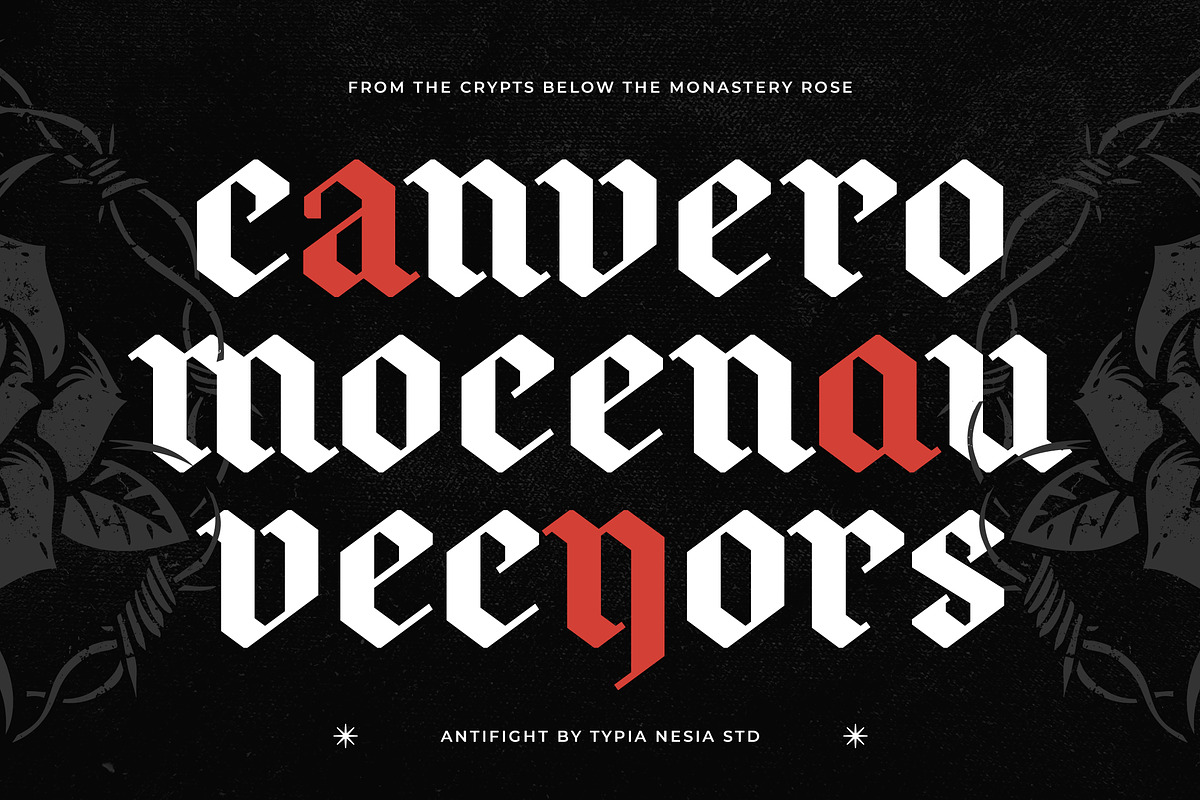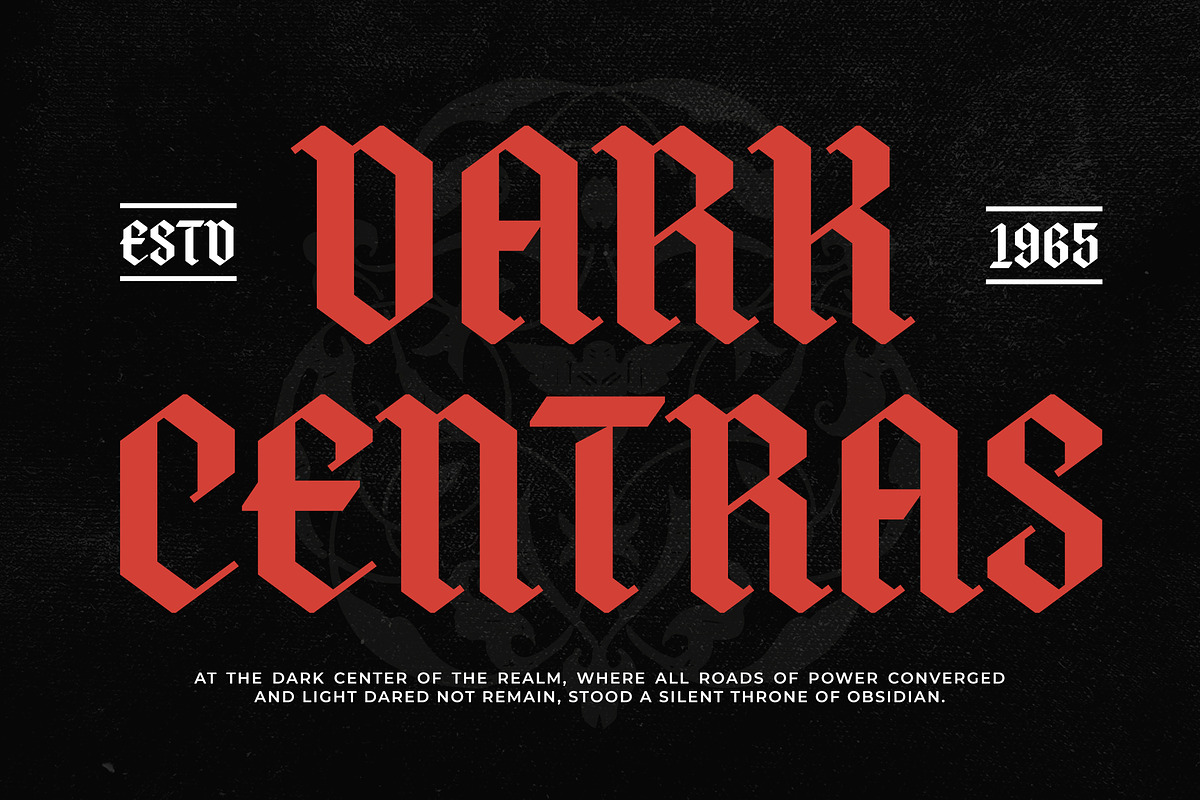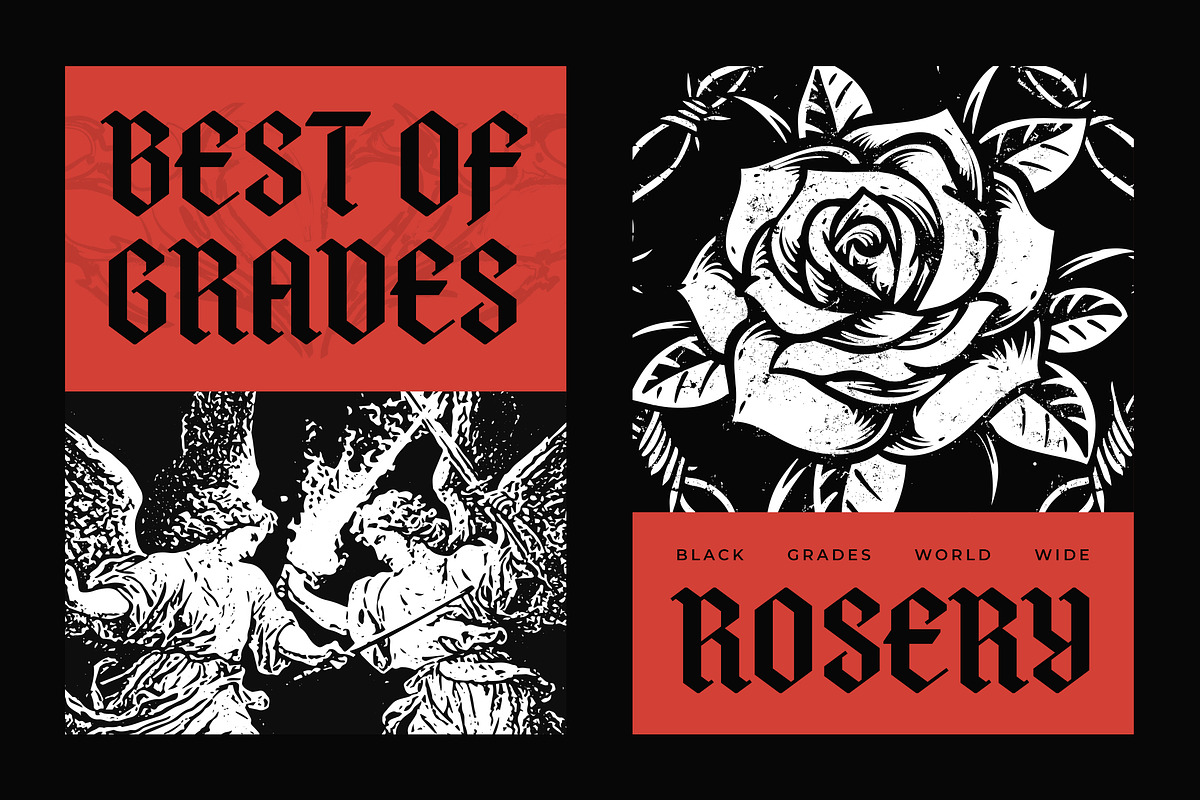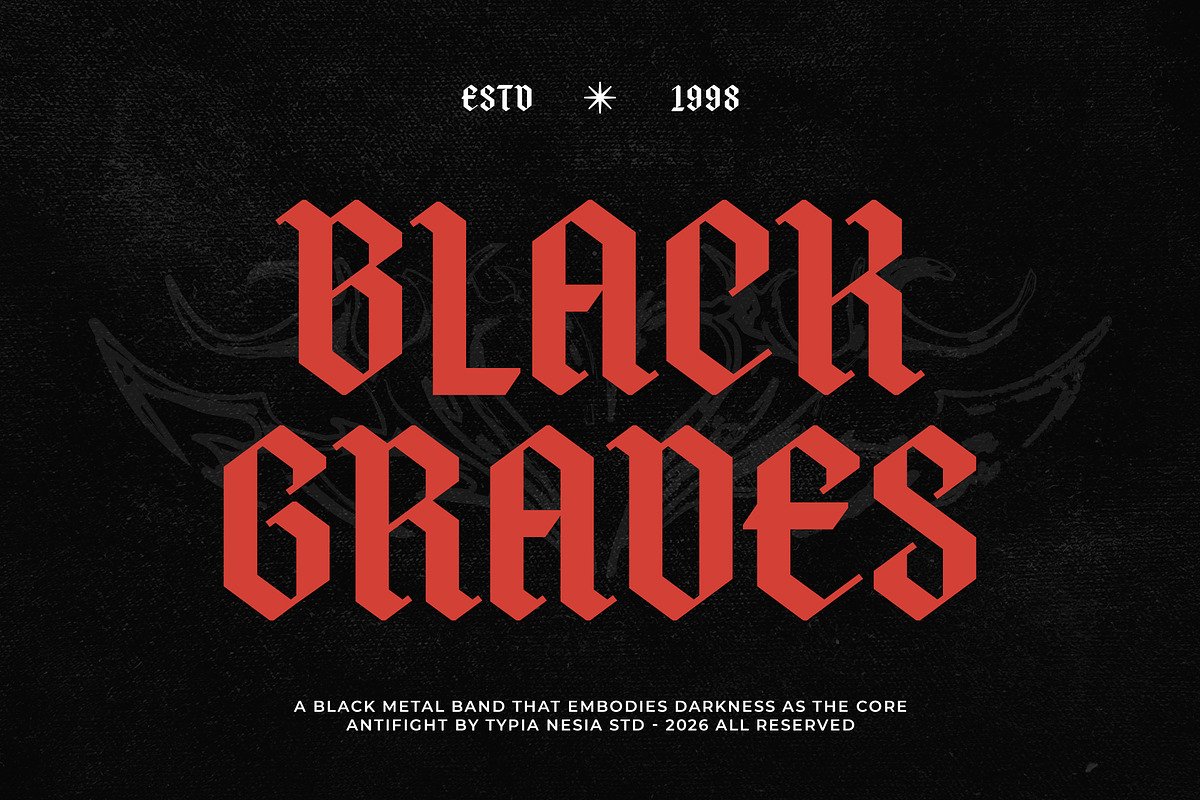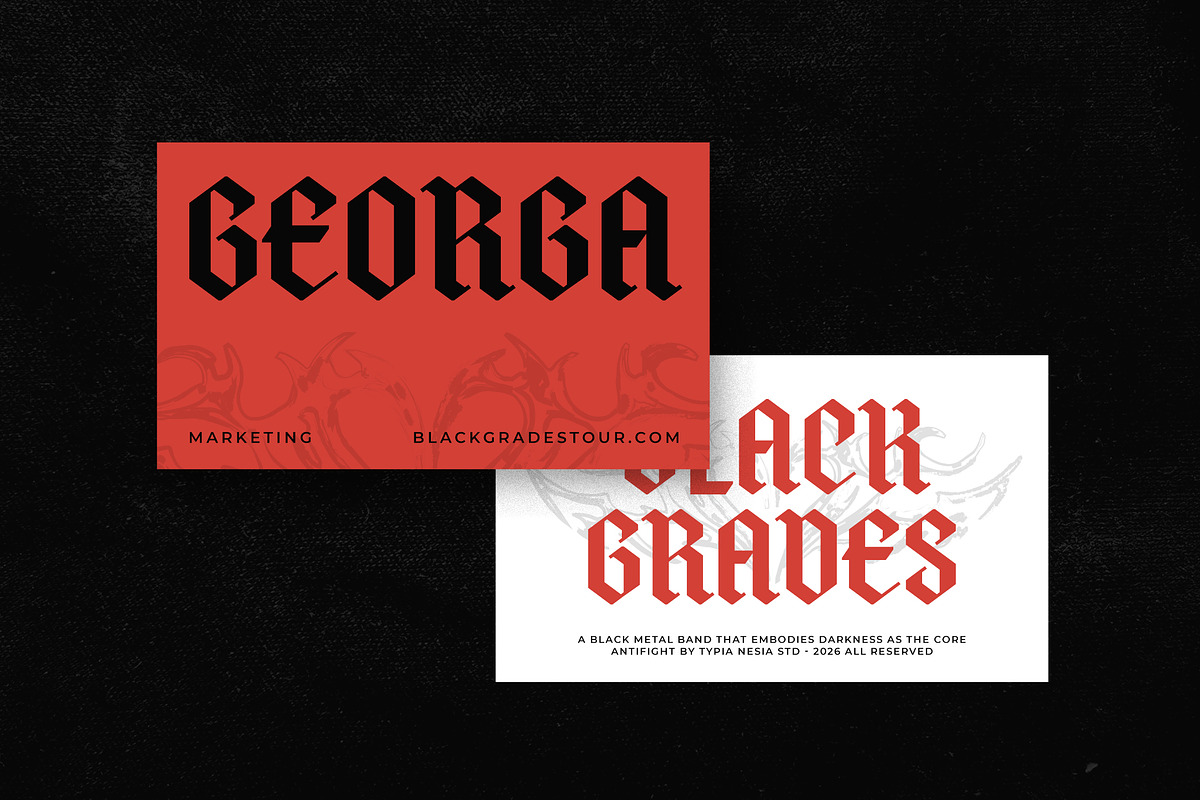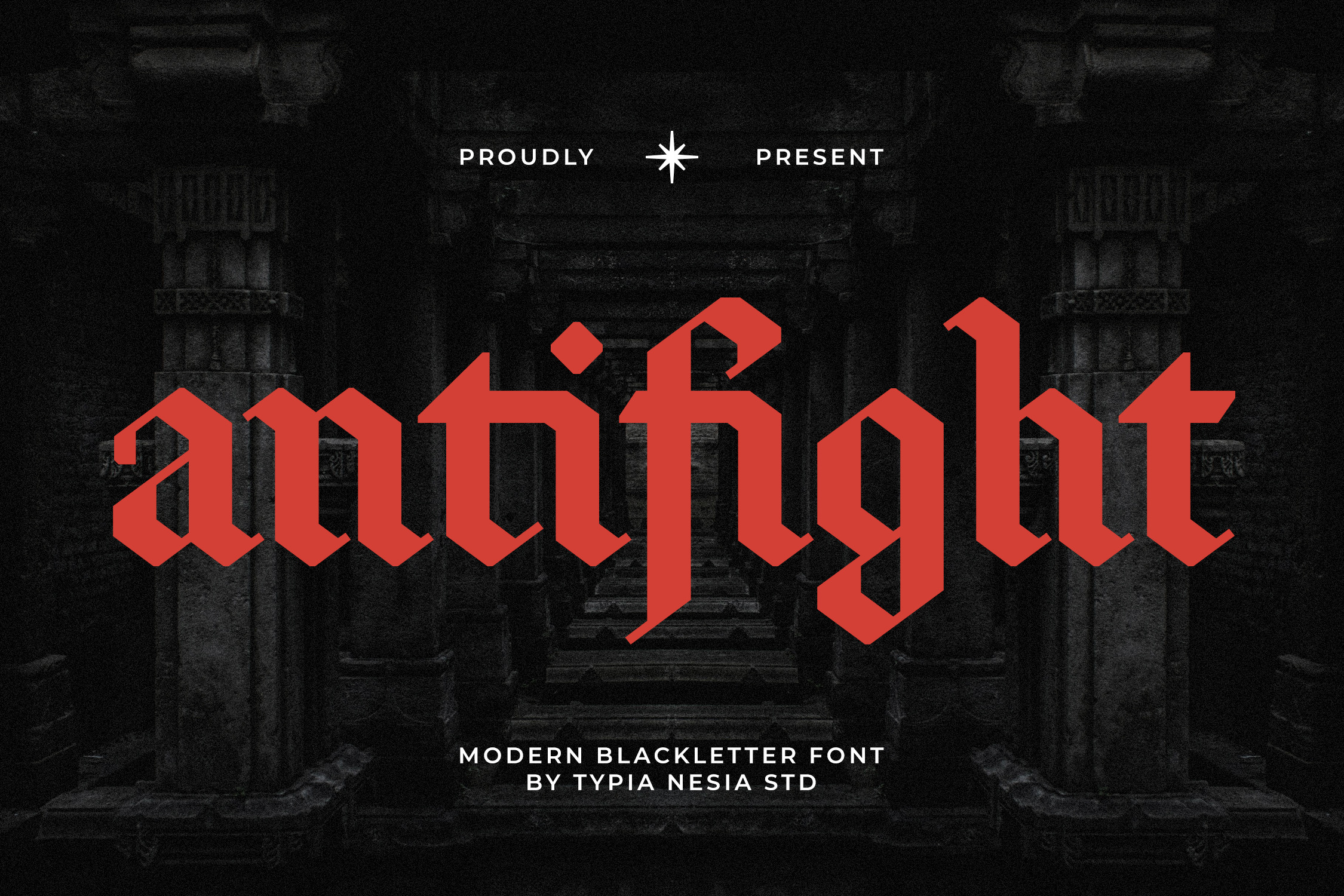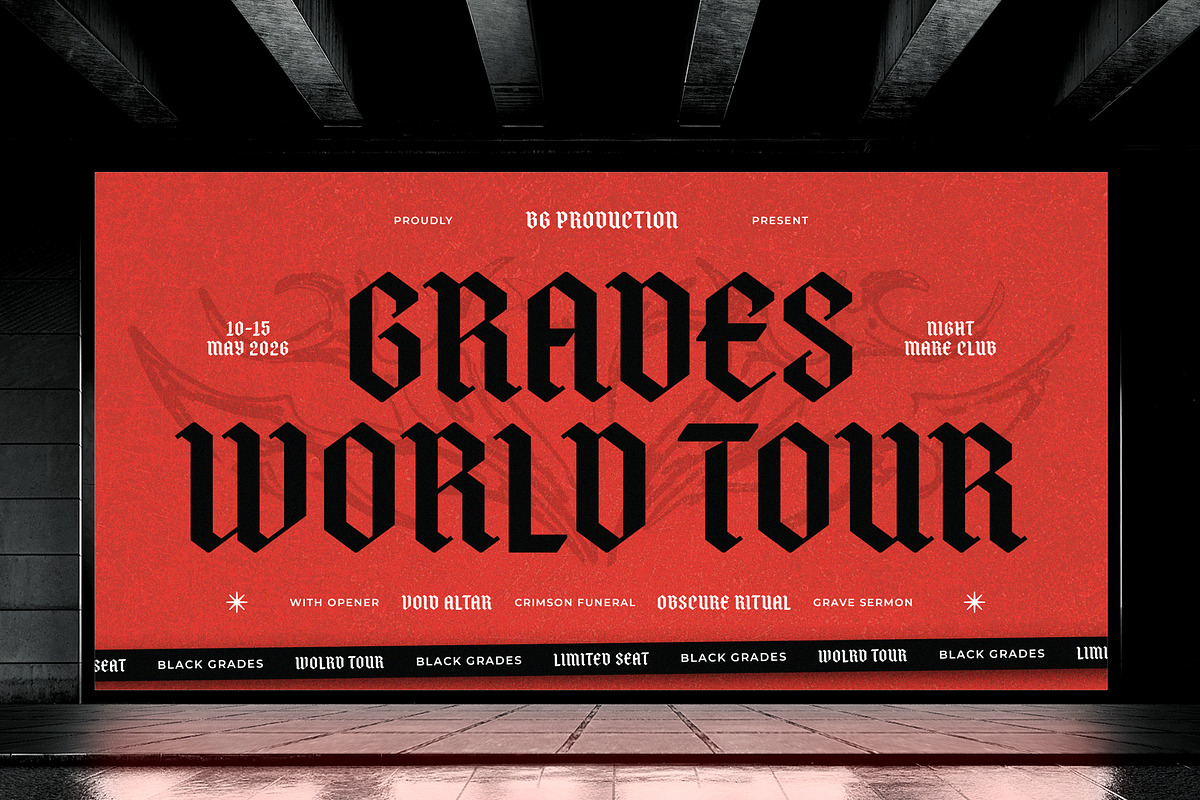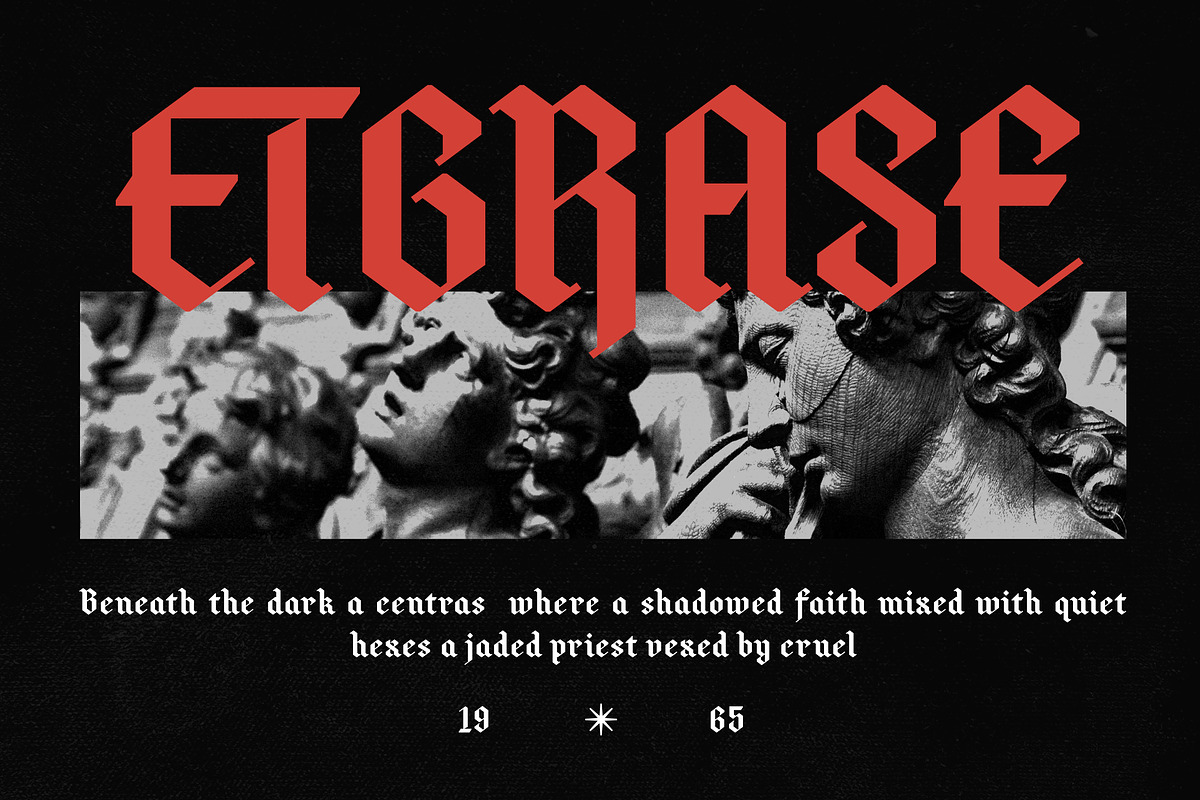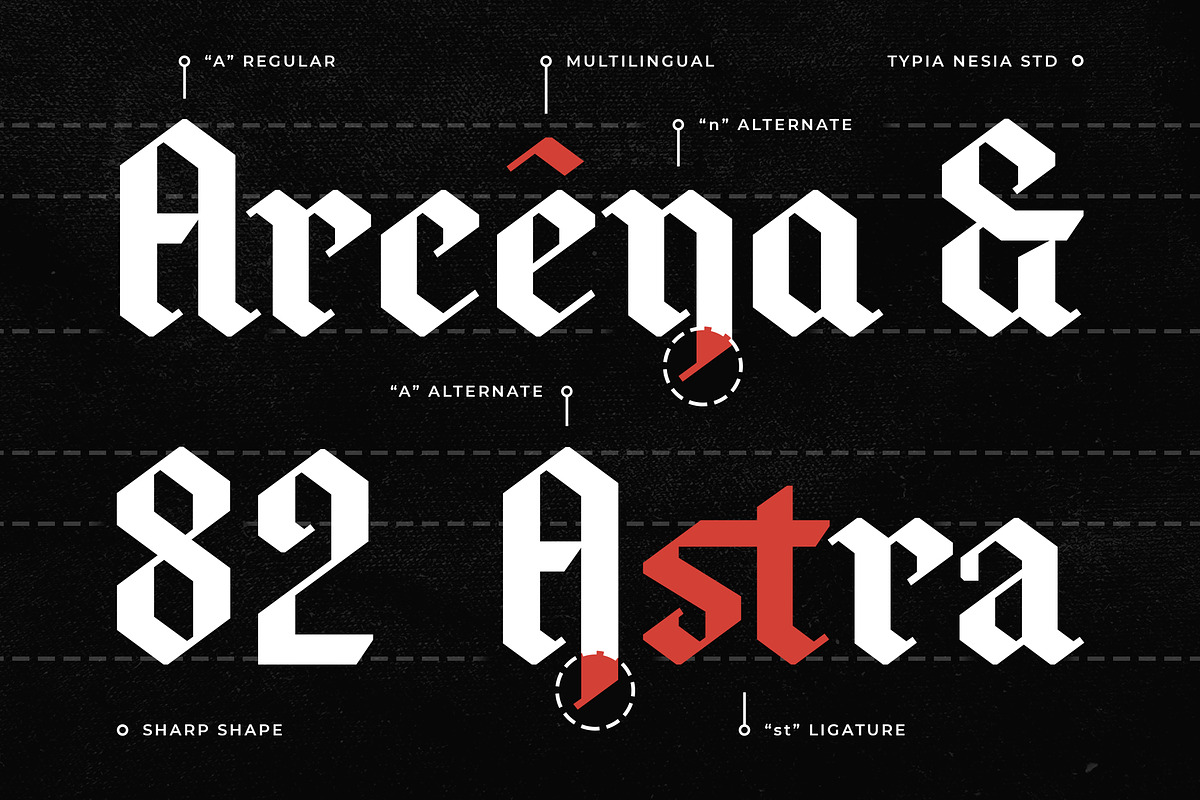
Antifight - Modern BlackletteR Font
Antifight - Modern Gothic Blackletter Font - Classic Vintage Logo Display Font
Antifight is a bold and powerful modern Gothic blackletter font that blends the spirit of medieval Old English style with a sharp contemporary edge. Designed with strong, angular strokes and dramatic letterforms, this typeface captures the essence of hardcore music, underground culture, and dark aesthetics while maintaining a clean and modern structure. It is perfect for music merchandise, band logos, game titles, esports branding, horror posters, streetwear designs, tattoo-inspired graphics, bold logo creations, and any project that demands a fearless and dominant presence.